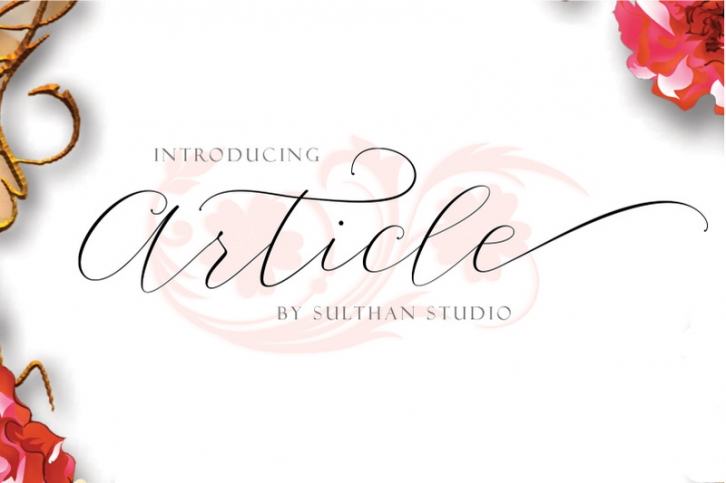
Article Font Download
Article script has a romantic and modern calligraphy, ready to give your design a fresh and fabulous Style.
Article script comes as a single font file packed full of great features.Perfect for weddings, branding and romantic invitations and also suitable for various purposes such as digital lettering, headings, logos, wedding invitations, t-shirts, letterheads, signage’s and much more!.Files included: